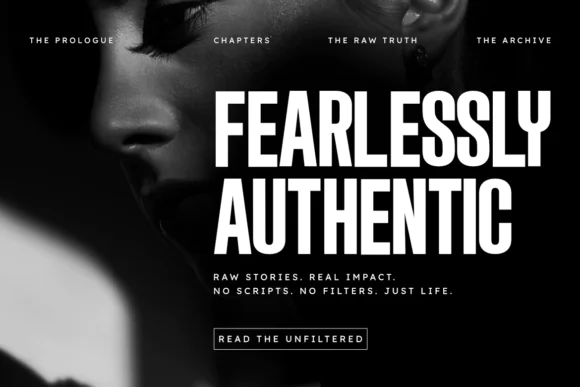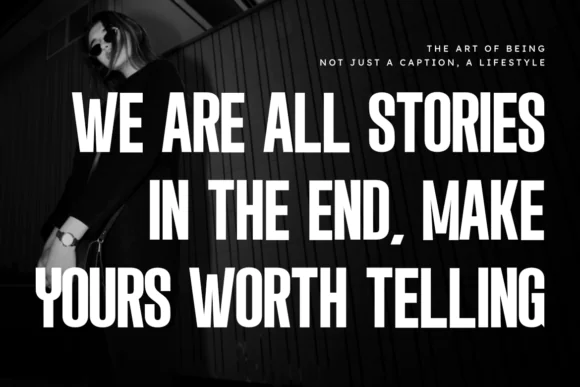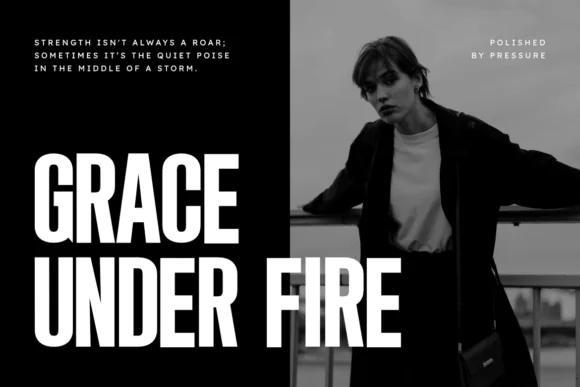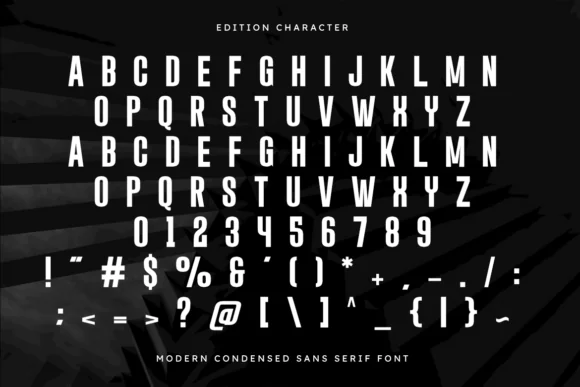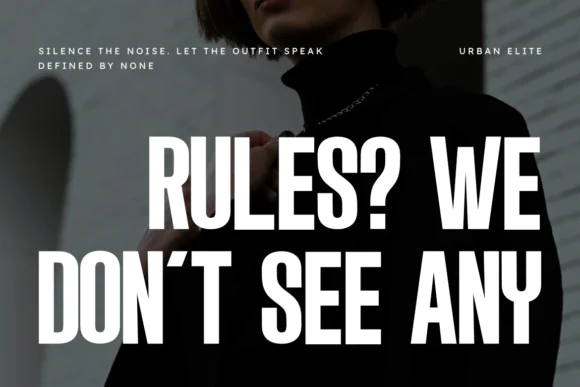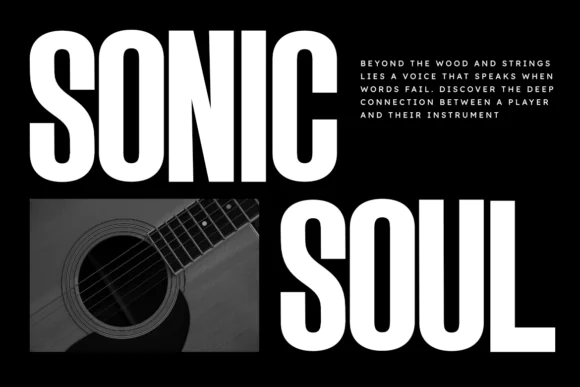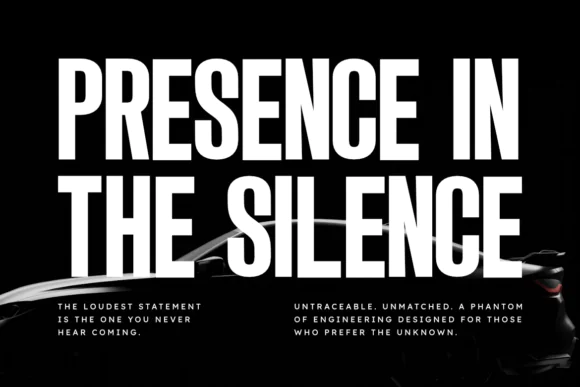
Edition Ultra-Condensed Sans Serif Font – Bold Tall Typeface for Strong Headlines, Modern Posters, Album Covers, Sports Graphics, Branding, Advertising & High-Impact Typography Designs
Create bold, powerful, and professional typography with Edition Font, an ultra-condensed sans serif typeface designed for strong visual impact. With its tall structure, compact width, and clean confident letterforms, this font is perfect for designs that need to look modern, sharp, and attention-grabbing.
Edition Font works beautifully for strong headlines, modern posters, album covers, sports graphics, branding, logos, advertising campaigns, social media banners, event flyers, product packaging, magazine layouts, apparel designs, and promotional materials. Its narrow style helps you create bold text layouts even in limited space, while still keeping the design clean, readable, and visually striking.
Whether you are designing a sports poster, music album cover, bold brand identity, cinematic title, modern ad graphic, or stylish merchandise artwork, Edition Font gives your project a strong and polished look. It is especially useful for designers, branding specialists, digital creators, print-on-demand sellers, marketers, and businesses that need confident typography for high-impact creative projects.
Headlines, modern posters, album covers, sports graphics, branding, logos, advertising, social media banners, event flyers, magazine layouts, packaging, apparel designs, merchandise, promotional graphics, and bold display typography.
Key Features
• Bold ultra-condensed sans serif font style
• Tall structure with compact width
• Clean, confident, and professional appearance
• Perfect for strong headlines and poster designs
• Great for album covers, sports graphics, and branding
• Ideal for high-impact advertising and promotional materials
• Suitable for digital, print, merchandise, and commercial design work